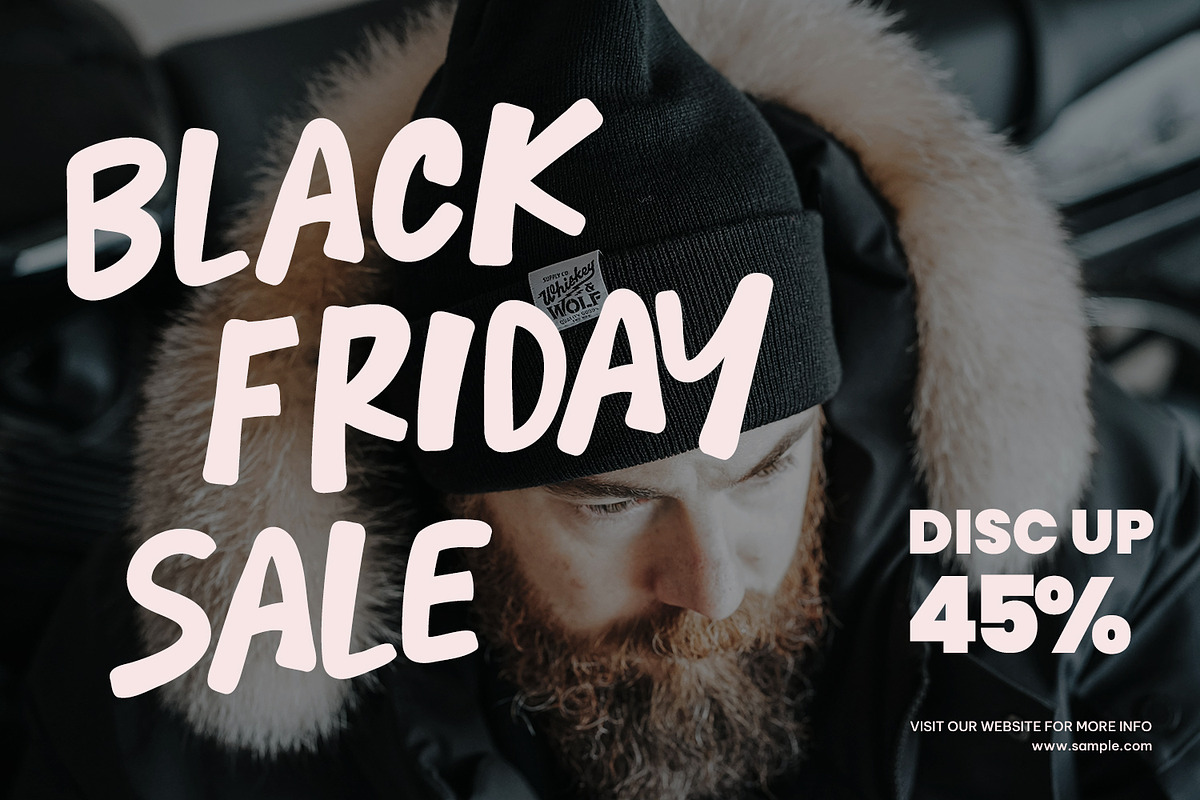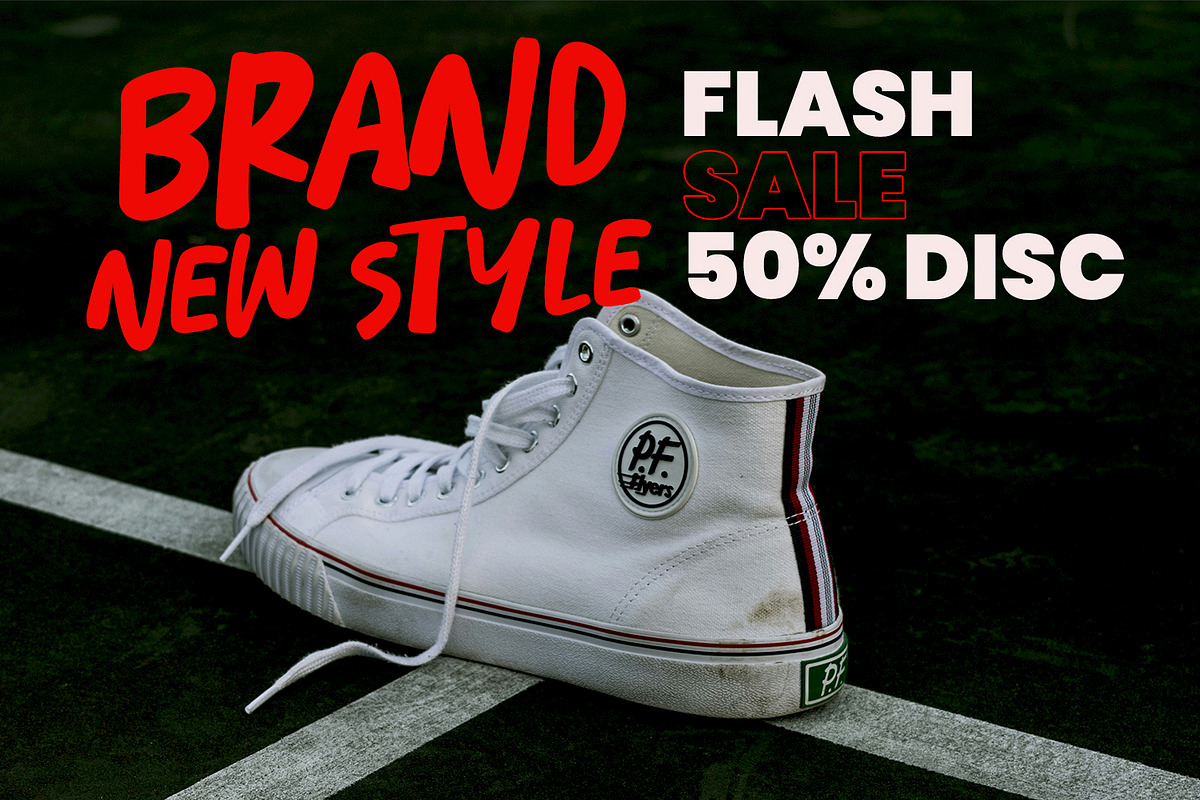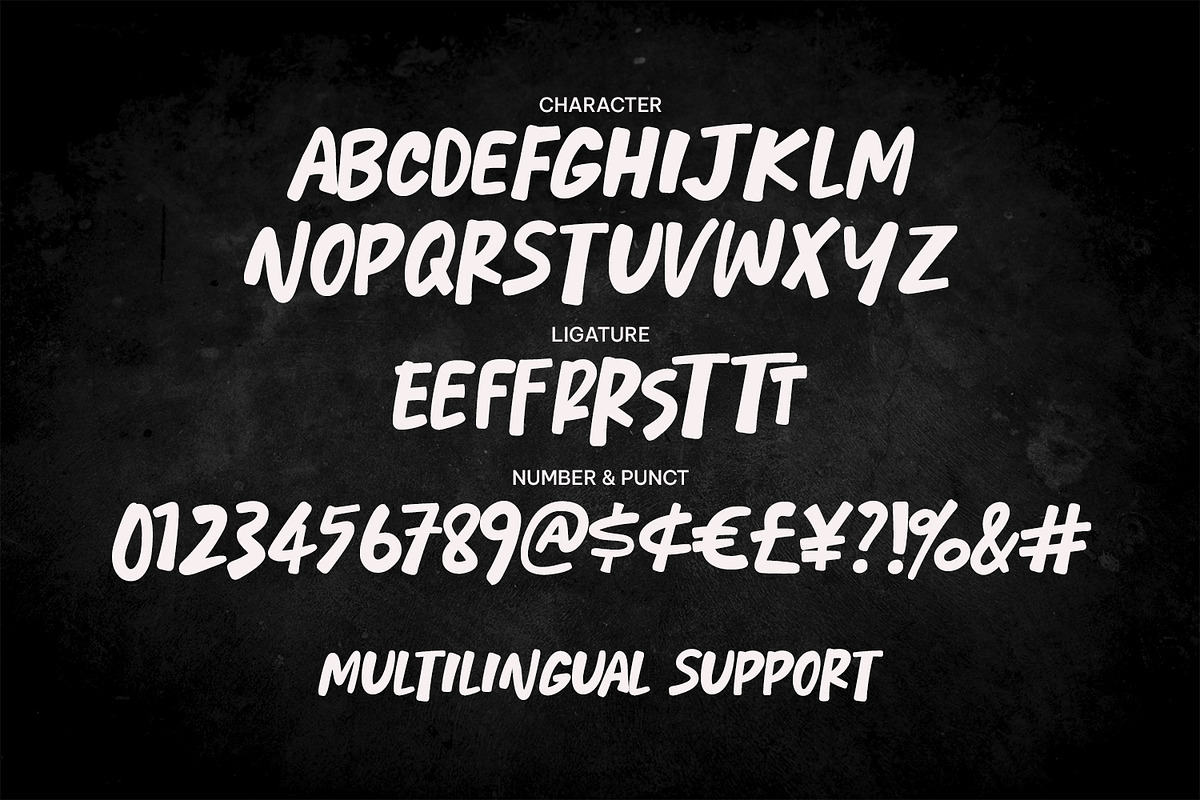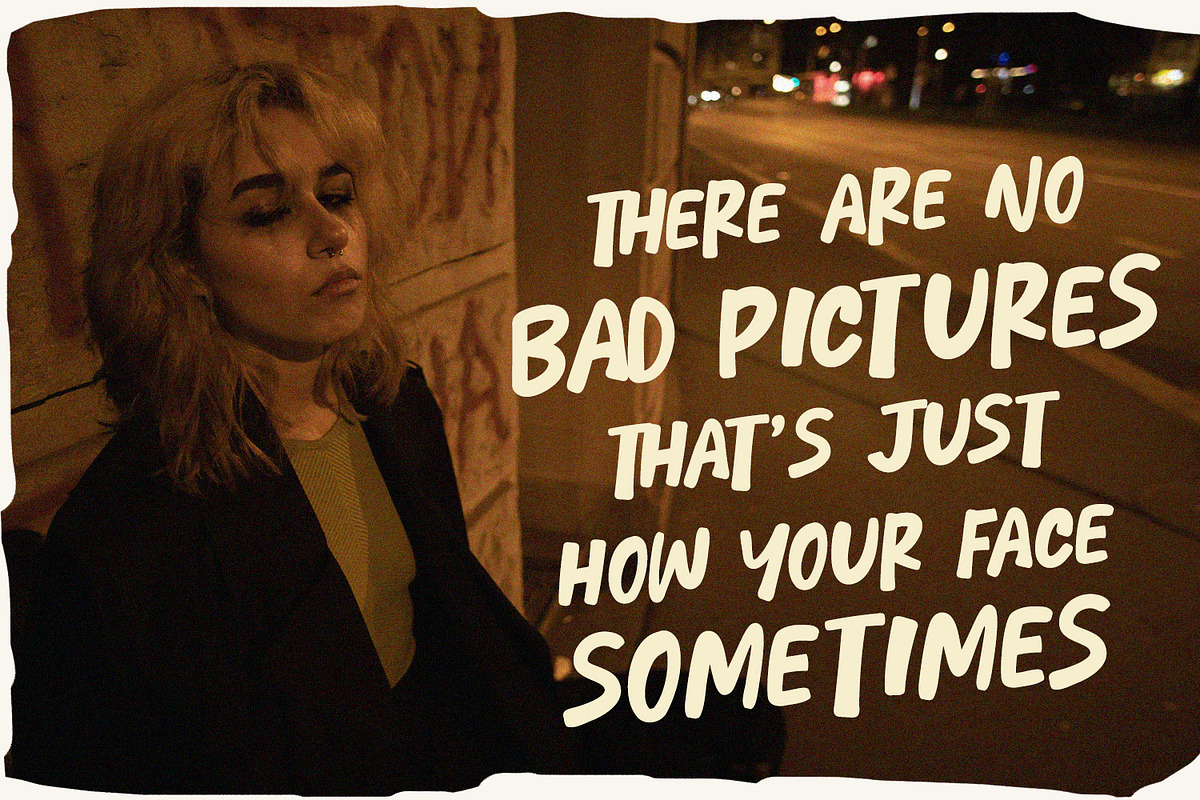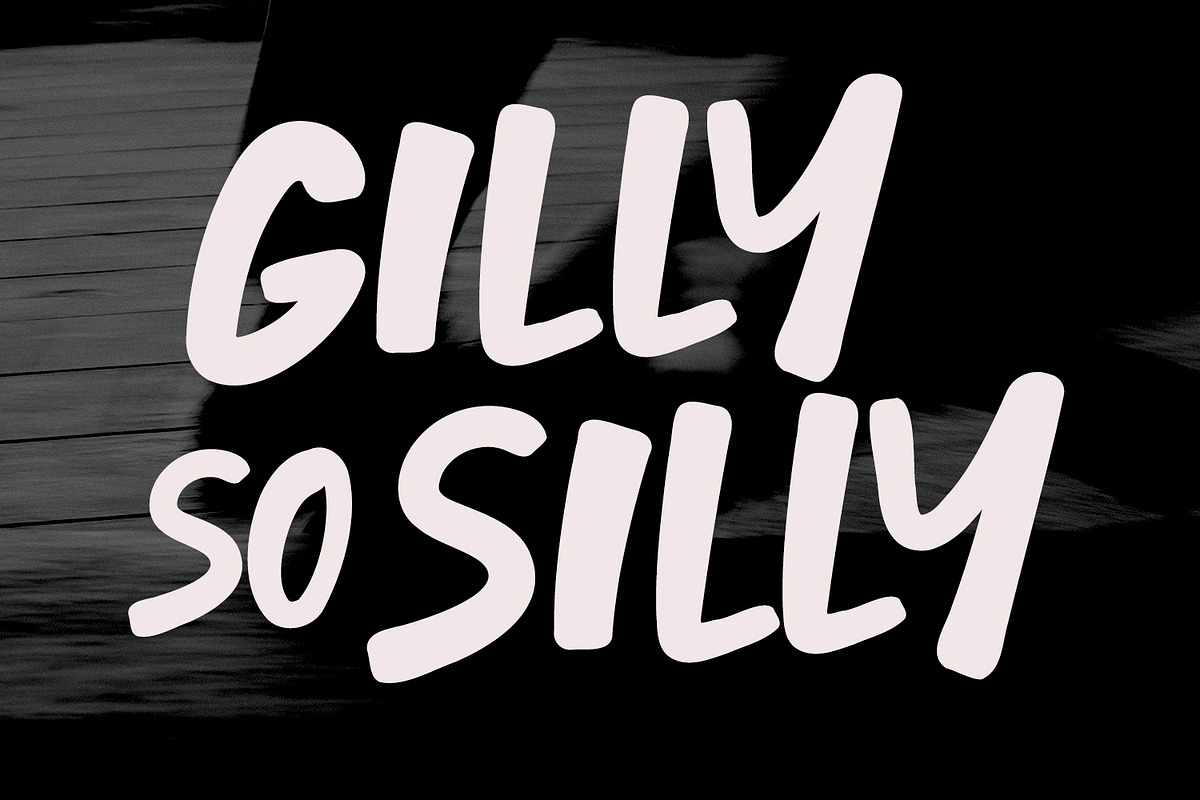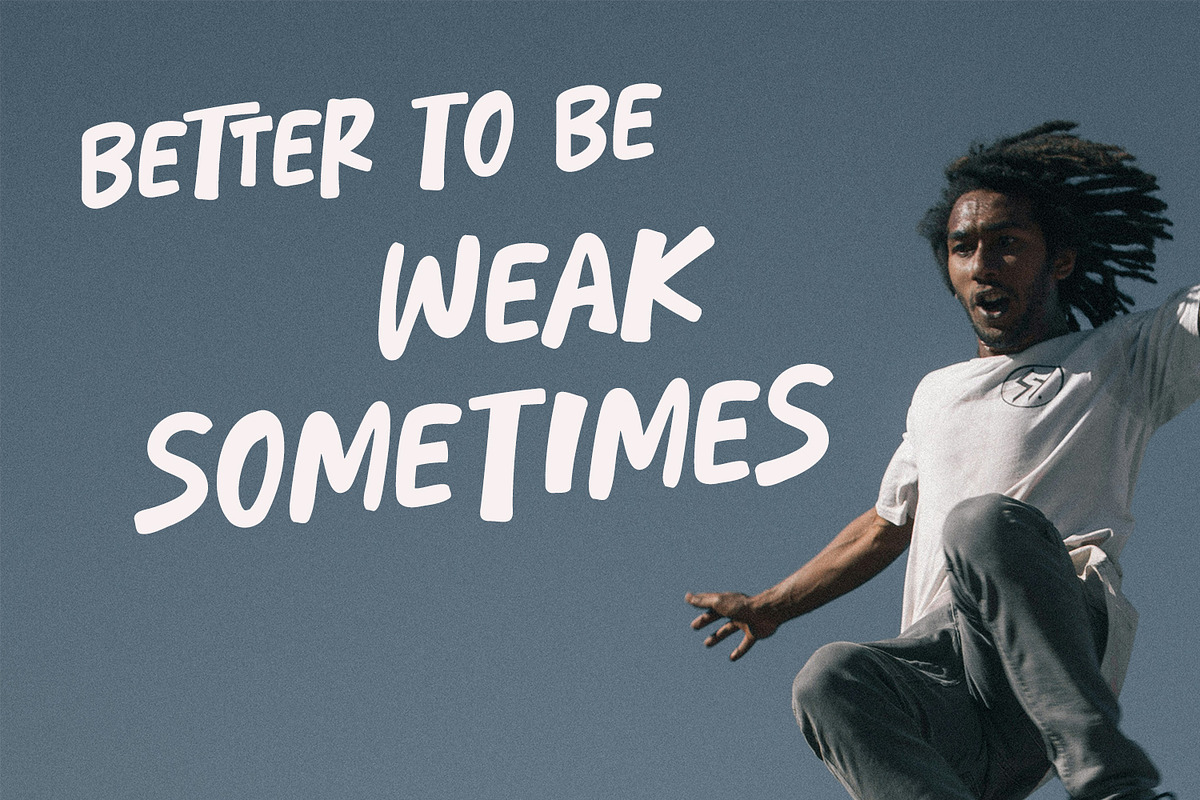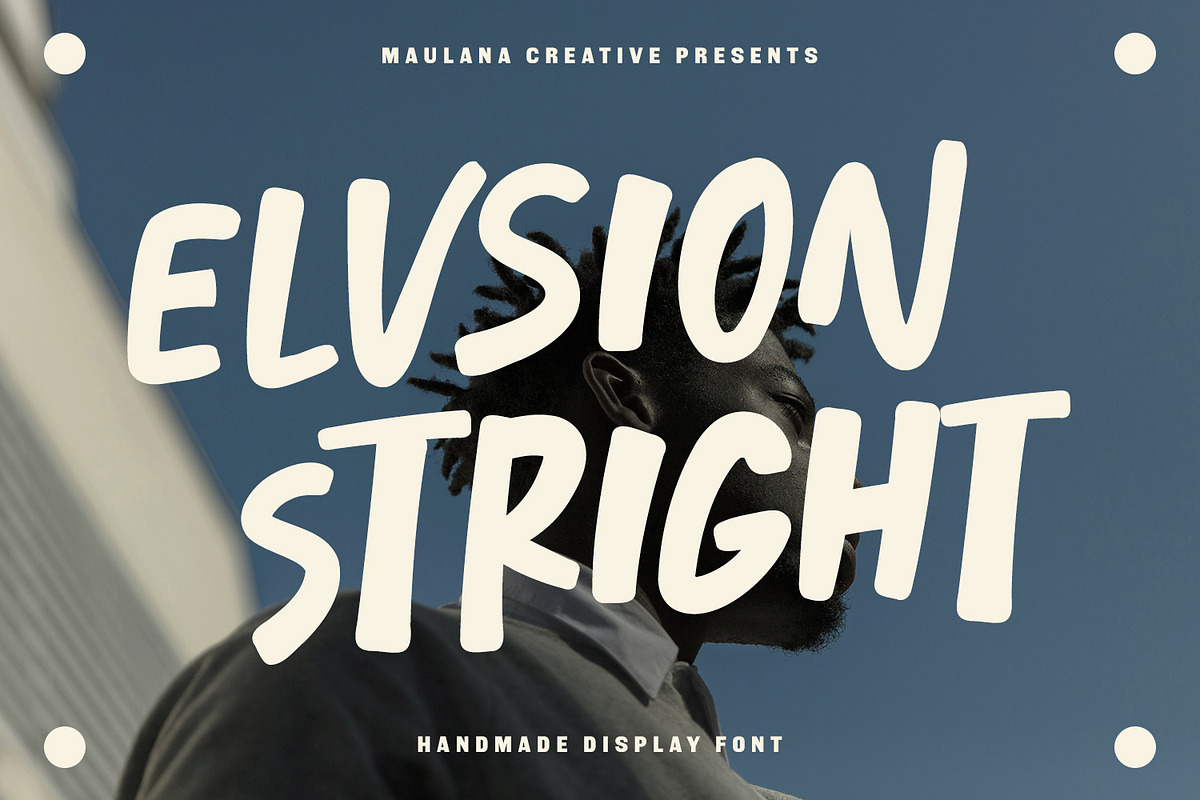
Elvsion Stright Bold Playful Display
Unleash your creativity with Elvsion Stright! Elvsion Stright is a handcrafted display font designed with a bold, rhythmic, and authentic feel. Its unique "stright" yet organic strokes give your designs a personal touch that is both modern and approachable. Whether you are working on a high-energy street fashion brand, a catchy social media quote, or a professional marketing flyer, this font provides the perfect balance of readability and character.
Packed with unique ligatures and multilingual support, Elvsion Stright ensures your message stays consistent across different languages and creative layouts. It’s the ultimate choice for designers who want to break away from clean, sterile typography and embrace a more "handmade" aesthetic.
- Unique Character: Authentic handmade feel with a bold presence.
- Ligatures: Custom letter combinations for a natural flow.
- Multilingual: Supports a wide range of global characters.
- Versatile: Perfect for branding, posters, social media, and merchandise.
- Numbers & Punctuation: Full set included for all your professional needs.